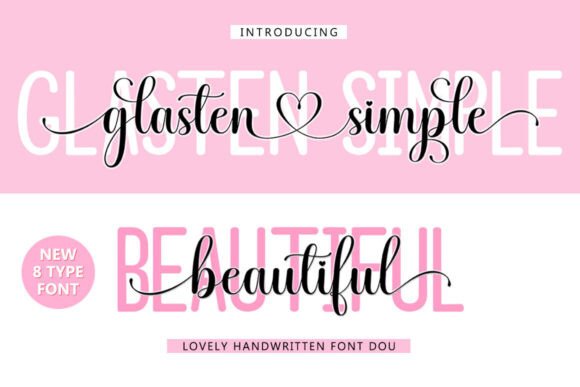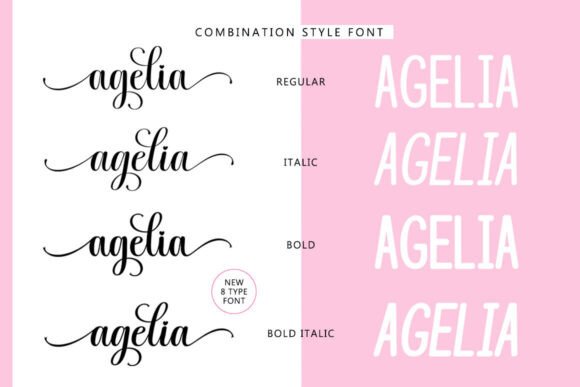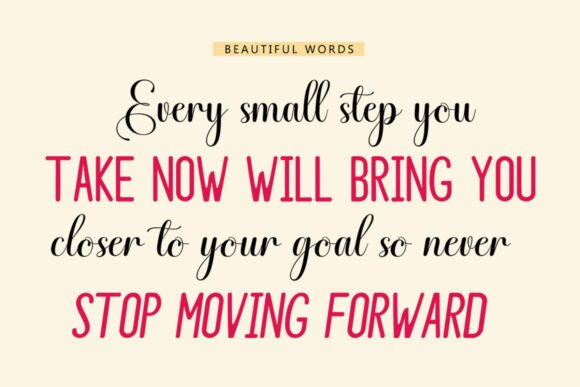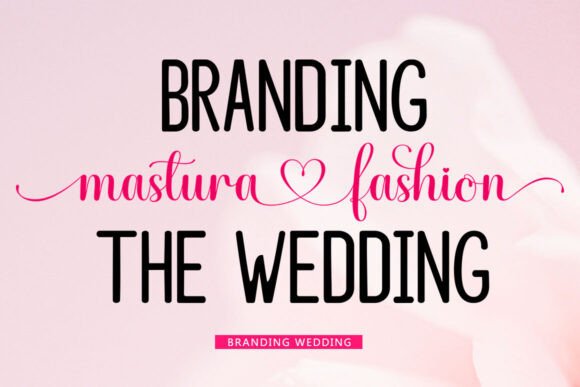
Glasten Simple Beautiful Font
About the Glasten Simple Beautiful Font
Discover the charm of Glasten Simple Beautiful Font. This font is a perfect blend of modern aesthetics and classic appeal. This design features a cheerful and romantic font duo called “Glasten Simple Script” and “Glasten Simple Beautiful.” The main font combines large, bold sans-serif typefaces with a soft touch, accented with delicate cursive flourishes and heart shapes, giving it a charming and unique look. The script font features elegant, flowing handwritten-style letters, further enhancing the romantic and refined aesthetic. Together, these fonts create a harmonious and visually appealing look, perfect for projects related to weddings, invitations, love themes, or feminine branding. The overall design is warm and approachable, with a modern yet timeless appeal.
Glasten Simple Beautiful Font Usage Examples
Glasten Simple Beautiful Font Example